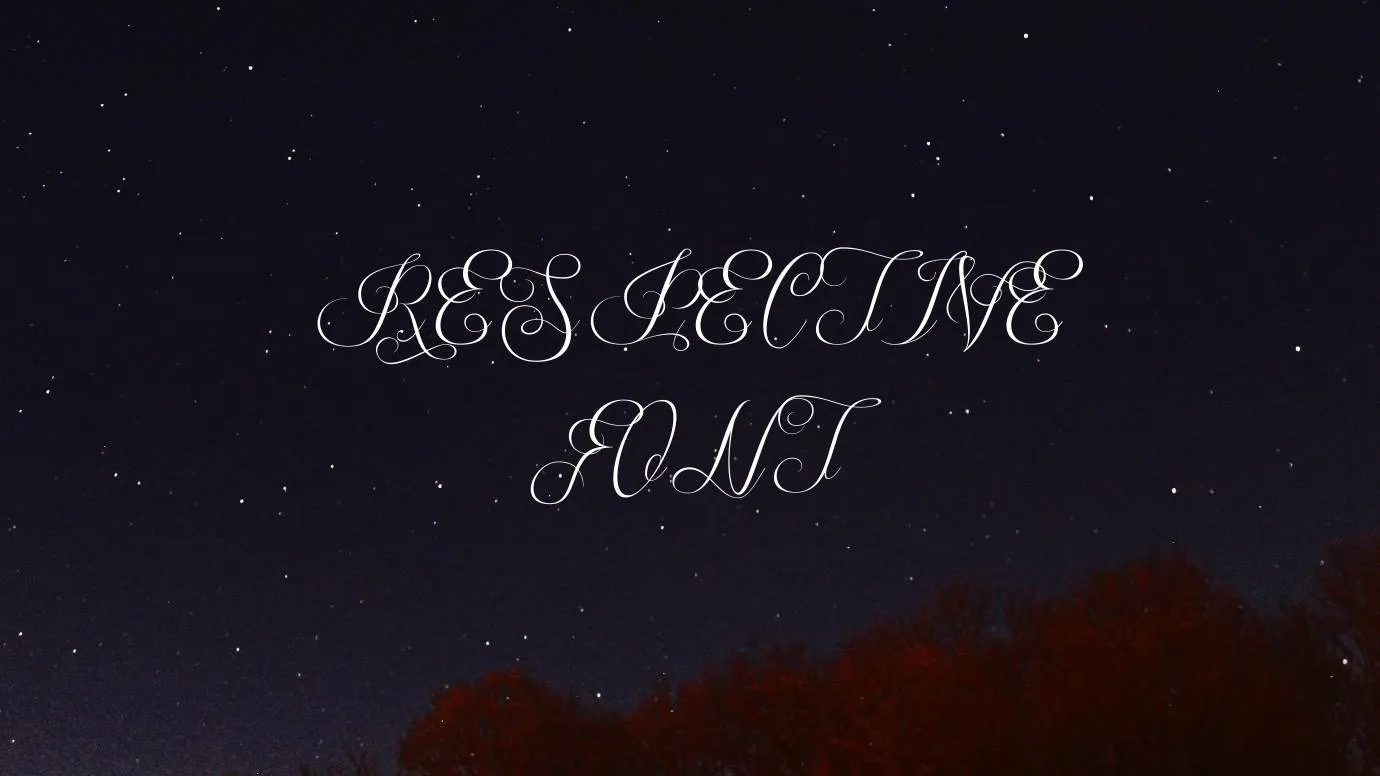
Respective Font Family comes in 4 super styles including Regular Style, Slanted Regular Style, Swashes Regular Style, and Swashes Slanted Regular Style. This advanced typeface was designed by Mans Greback and he released this typeface from Mans Greback foundry in 2011.
It is available in Truetype features along with ligatures, swashes, and fantastic letterforms which make it suitable for big headlines. December Calligraphy Font is the most similar font to this typeface.
Respective Font Family
NameRespective Font
DesignerMans Greback
StyleScript
Date Released2011